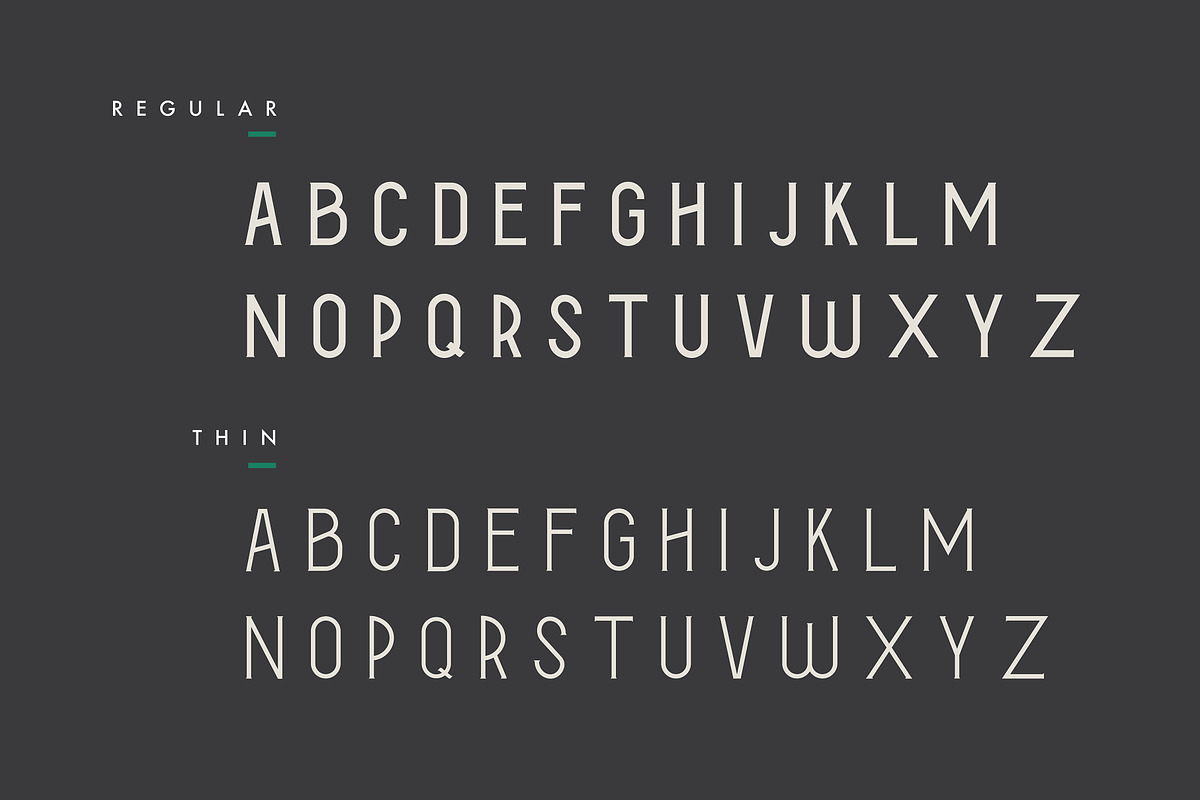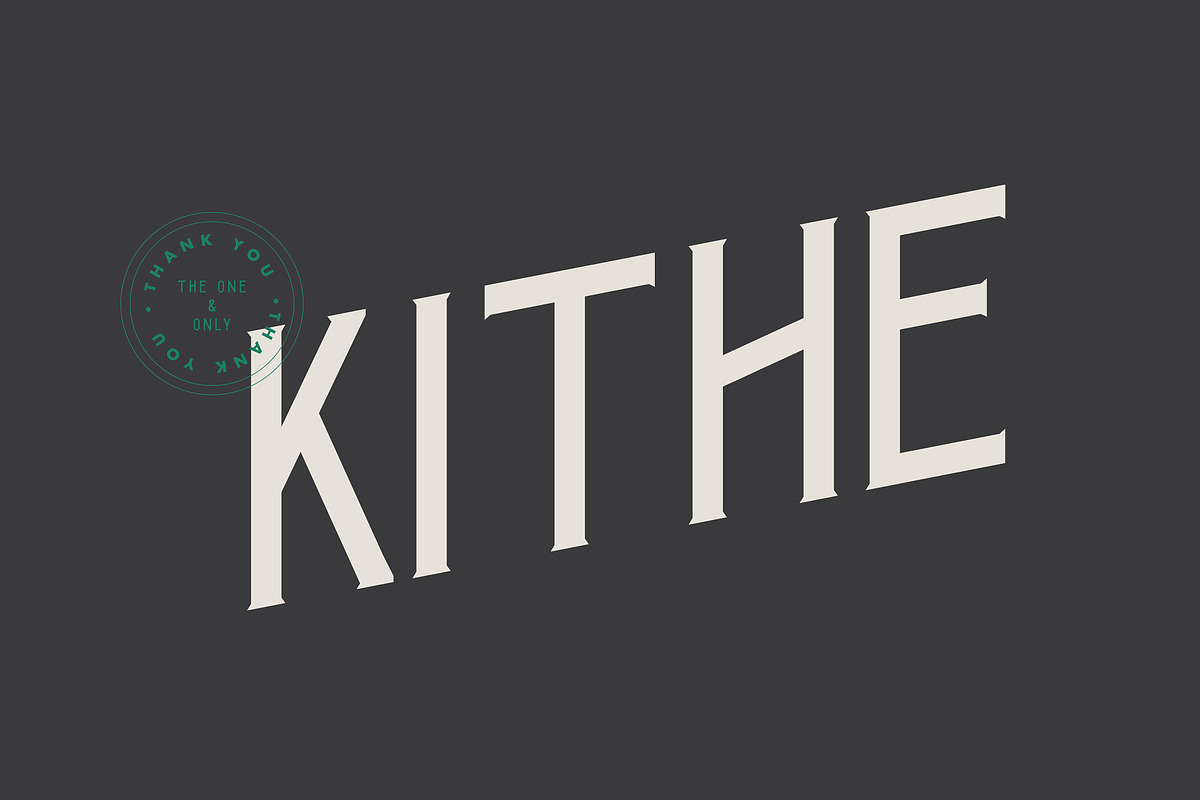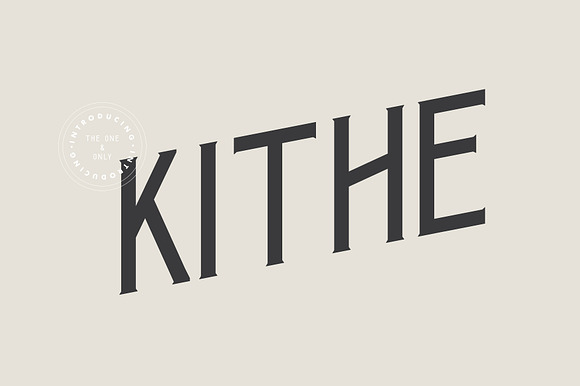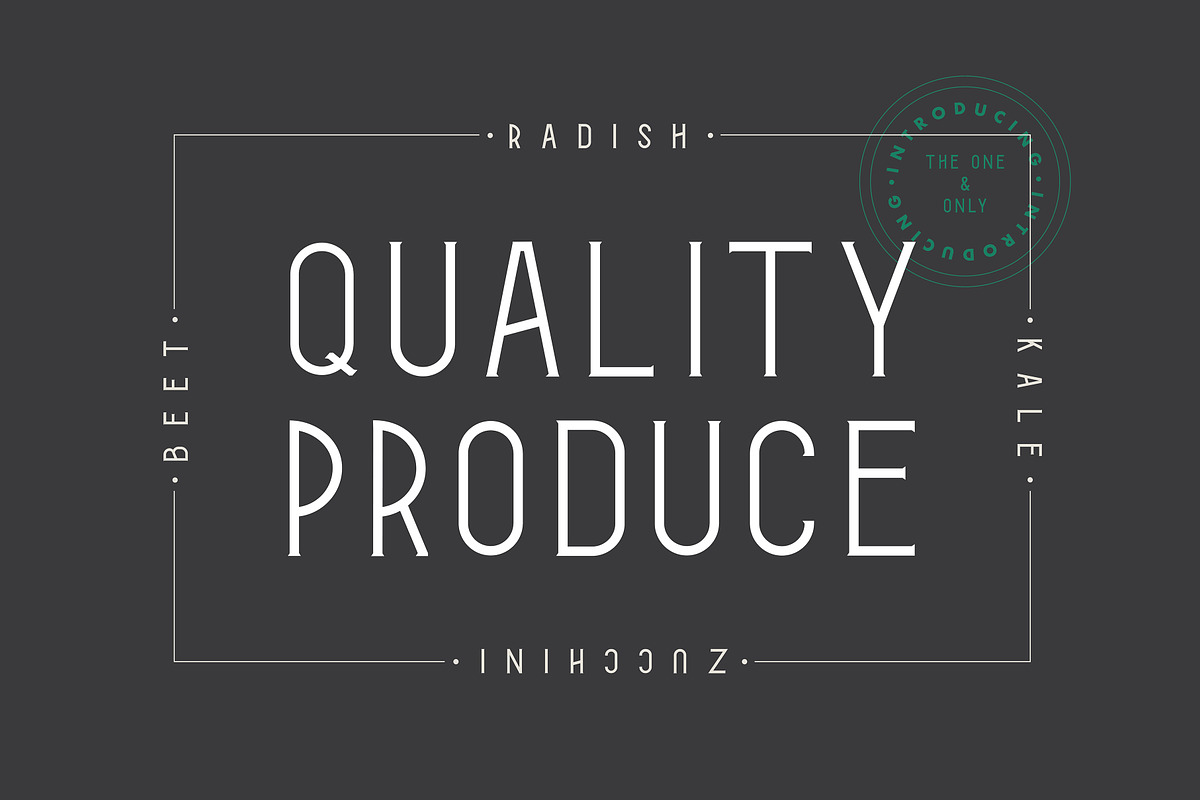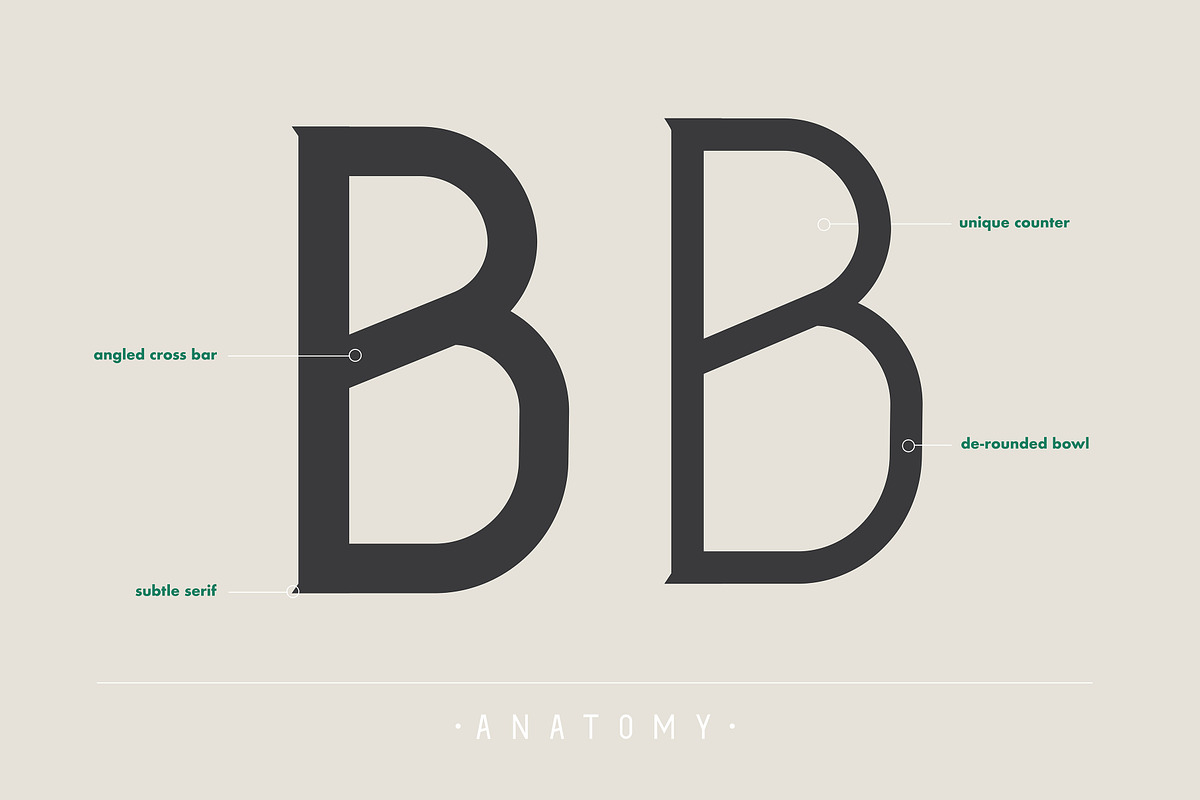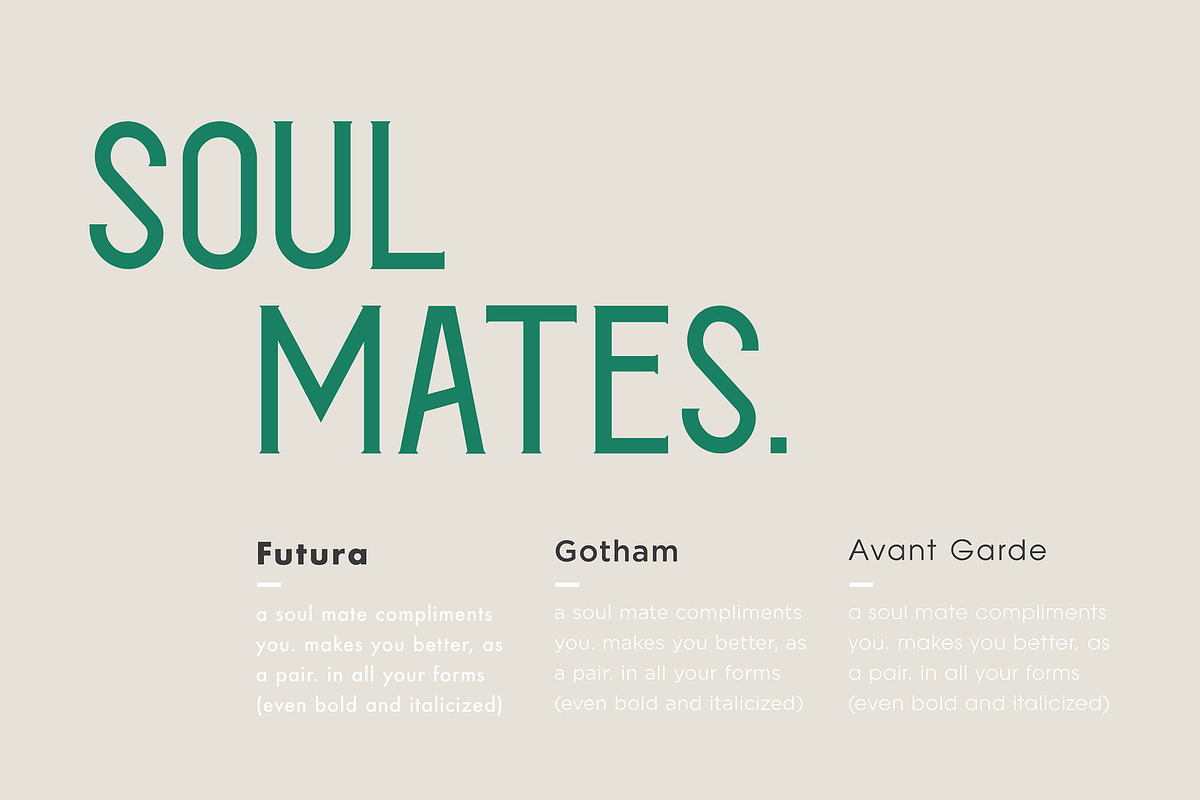
Kithe Typeface
Kithe is a clean display face with tons of character. Sitting tall and strong with striking touches like the angled cross bar, unique counters, and subtle serifs. Each letter carefully designed to create a family like no other. Whether you’re creating signage for a local coffee shop, hand making wedding invitations, or looking for a unique logo, Kithe’s diverse design is sure to please. Best used as a display face for headers, Kithe is best paired with simple and clean secondary typefaces. Add Kithe to your font family today for your next project!